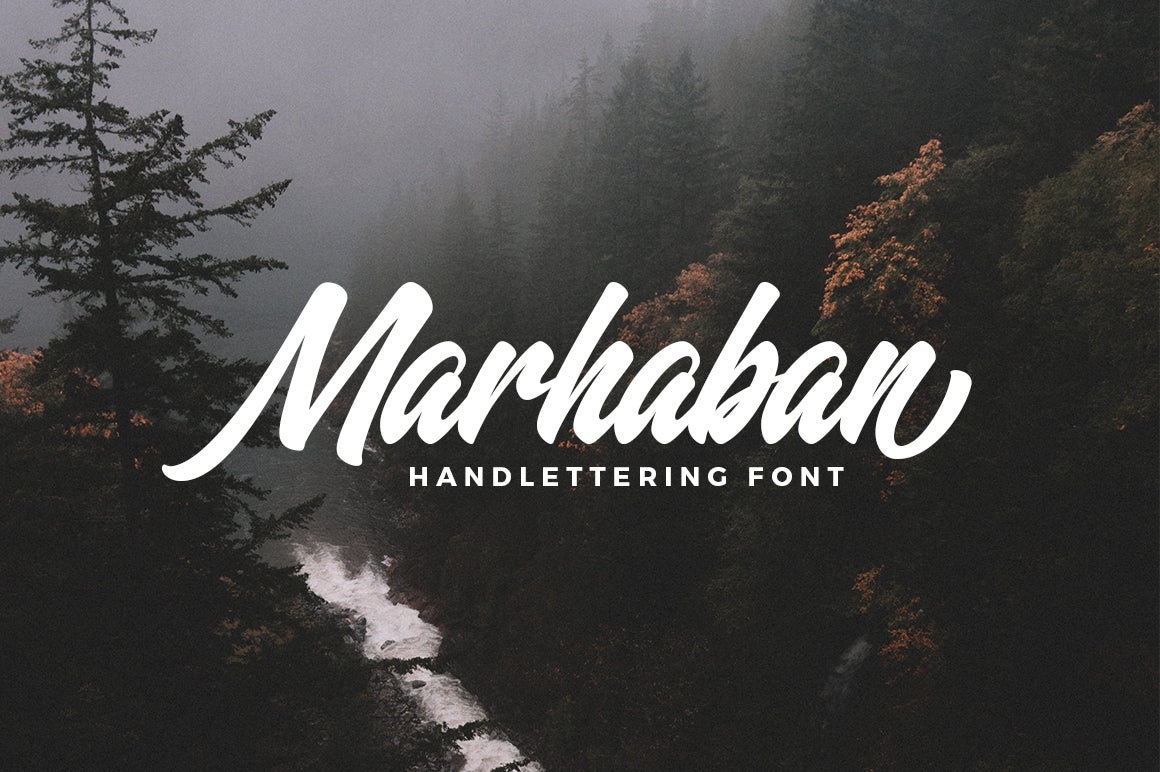
Free Marhaban Font
Featuring a free marhaban font. This typeface file was found from the amazing source called Font Bundles. This is absolutely fancy font so you can easily make world-class designs.